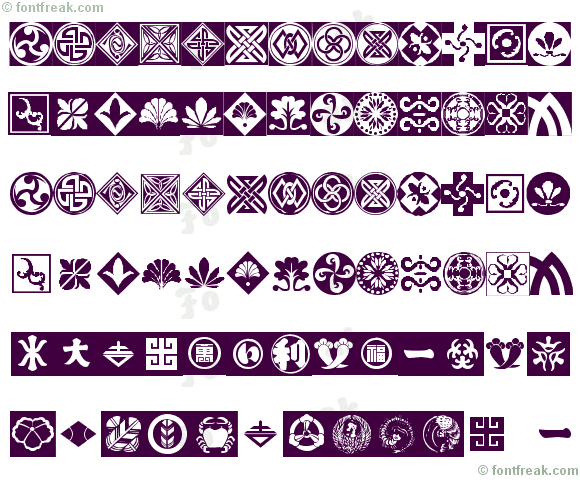
Orient Patterns
The Orient Patterns font by Omega Font Labs is a unique decorative typeface that stands out in the realm of design for its intricate and ornamental qualities. As a display font, it features a series of beautifully crafted patterns that blend seamlessly into various design projects, making it an excellent choice for creatives seeking to add a touch of sophistication and flair.
Visually, the Orient Patterns font showcases a variety of decorative elements, including floral motifs and geometric shapes, all designed with a consistent stroke weight that provides a harmonious appearance. The spacing is thoughtfully arranged to enhance readability while allowing the intricate details to shine. This balance makes it an ideal choice for applications where visual impact is paramount.
The best use cases for the Orient Patterns font include wedding invitations, where its elegant designs can evoke a sense of romance; movie posters, where bold visuals are crucial for attracting attention; restaurant menus, especially for establishments that focus on exotic or fine dining; and branding materials, where it can help create a memorable visual identity. Graphic designers, small business owners, and content creators will find this font particularly appealing, as it offers versatility across various mediums.
What sets the Orient Patterns font apart is its ability to merge traditional design elements with a modern aesthetic, making it suitable for both contemporary and classic projects. The freeware licensing allows for easy access, encouraging widespread use without the burden of cost. For those looking to enhance their design toolkit, the Orient Patterns font free download provides an excellent opportunity to experiment with this decorative typeface that captures attention and inspires creativity.